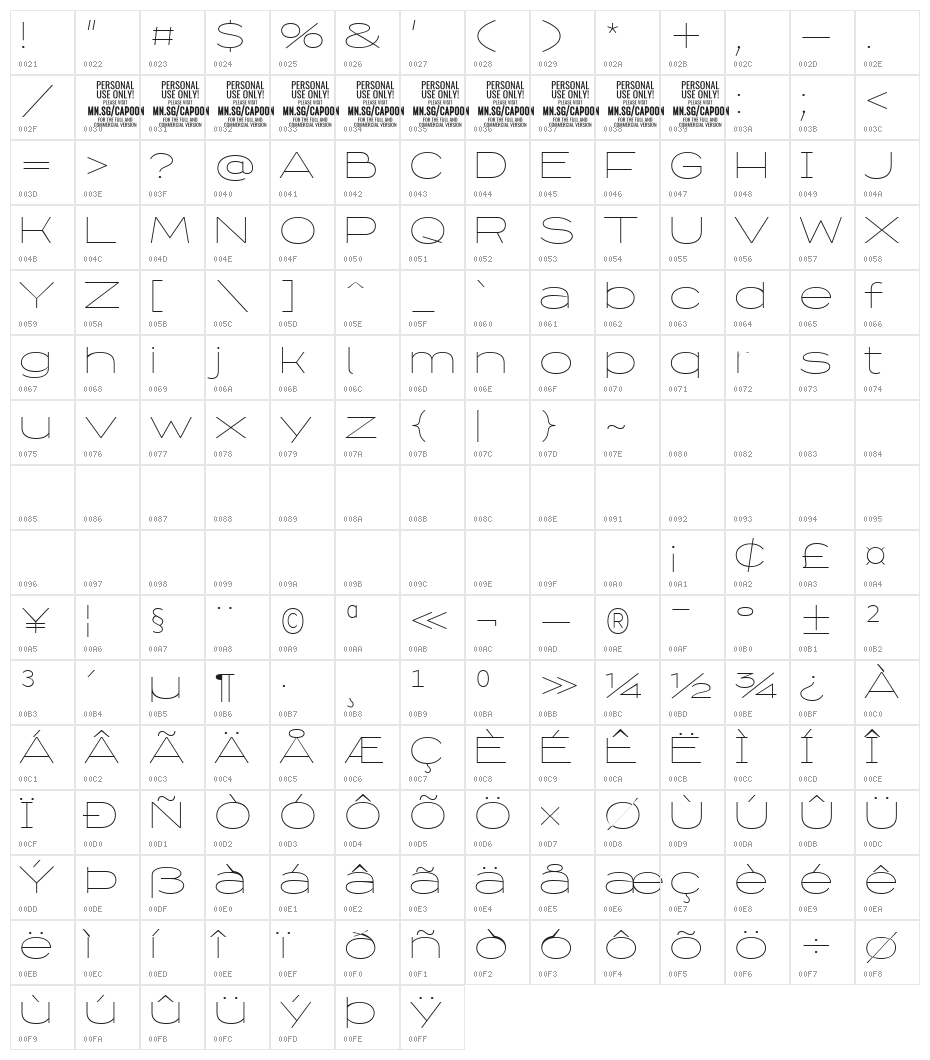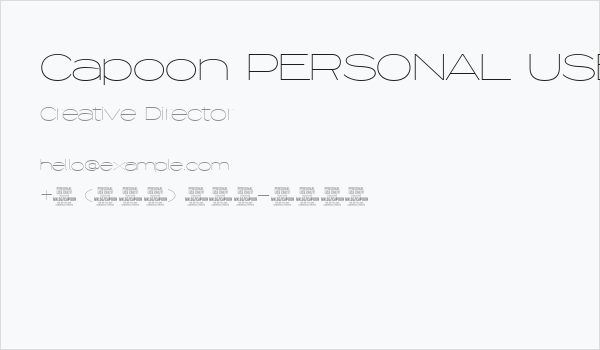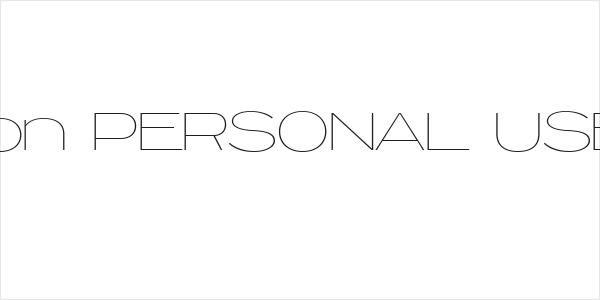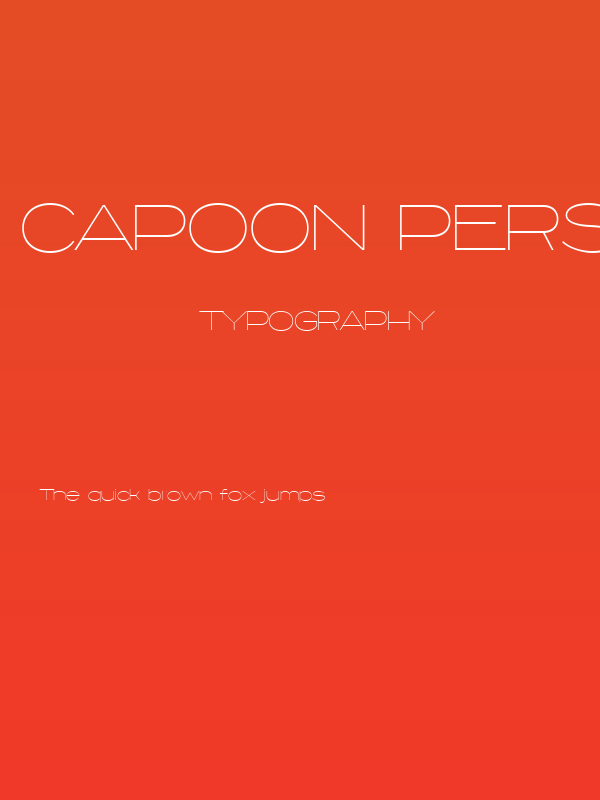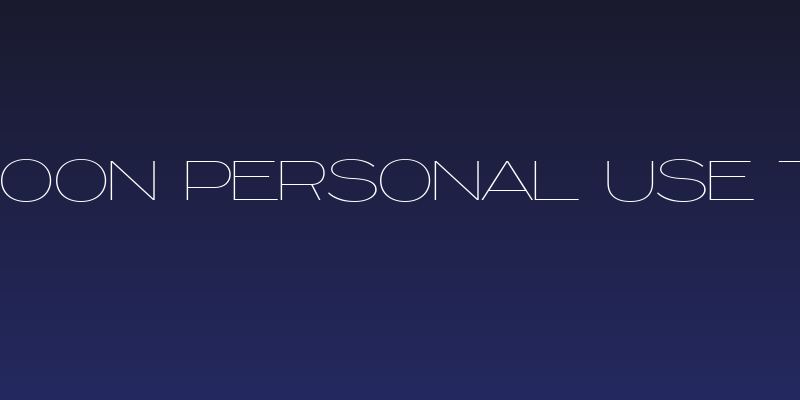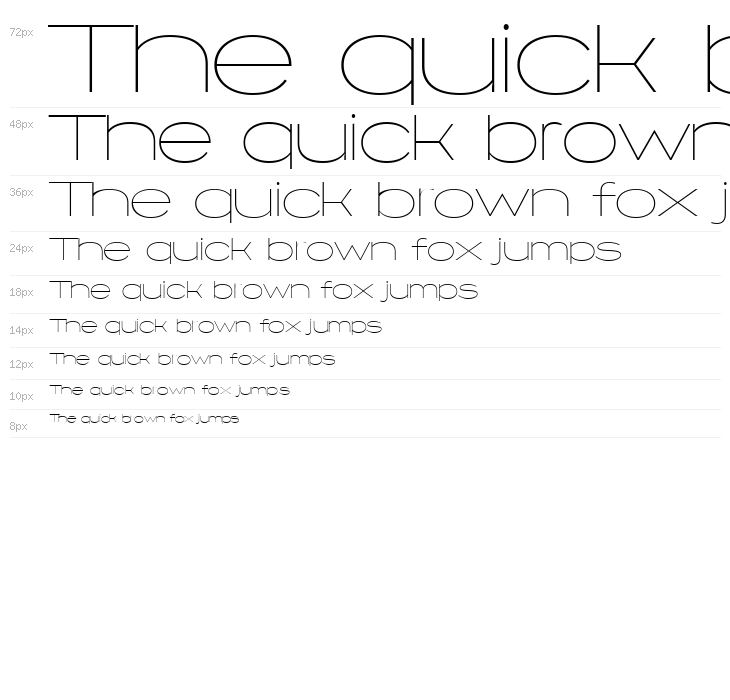
Capoon PERSONAL USE Thin Font
Capoon PERSONAL USE Thin Description
This font features a sleek and modern design with thin, clean lines that give it a minimalist and contemporary feel. The characters are geometrically structured, providing a sense of precision and clarity. The uppercase and lowercase letters maintain a consistent style, with a uniform stroke width that enhances readability. The numerals and special characters are designed to complement the alphabet, maintaining the overall aesthetic. This font is ideal for projects that require a modern and sophisticated look, such as branding, advertising, and digital media.
| Use Case | Headlines, Logos, Digital Media |
| Proposed Projects | Ideal for branding, advertising, digital media, and modern design projects. |